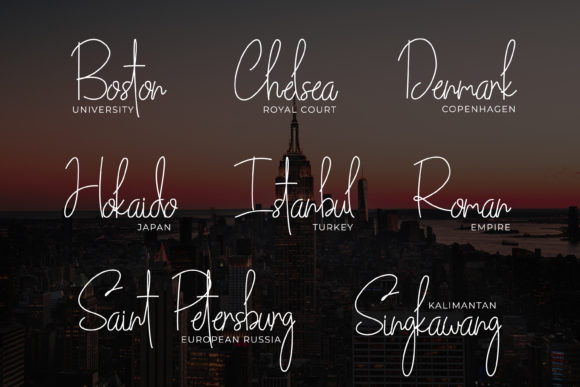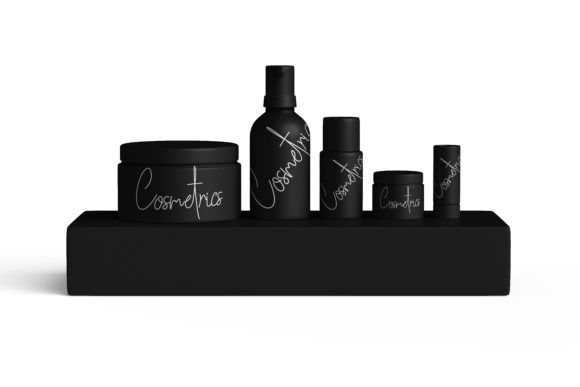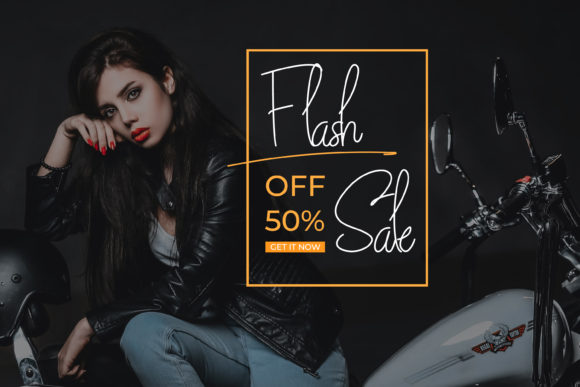
Southeastern Font
About Southeastern Font
Southeastern is a relaxed and flowing handwritten font. Fall in love with its incredibly versatile style and use it to create gorgeous wedding invitations, beautiful stationary art, eye-catching social media posts, and much more!